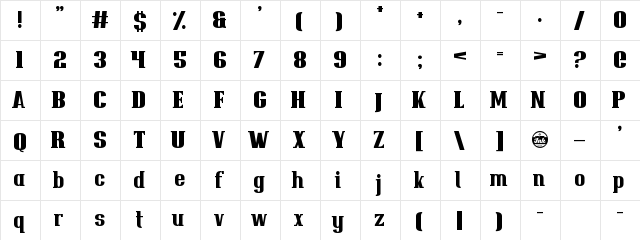
Jemboree Regular
Design Context for Jemboree Typeface
Jemboree offers clean, dependable letterforms without strong stylistic allegiance, making it a practical choice for designers who need flexibility.